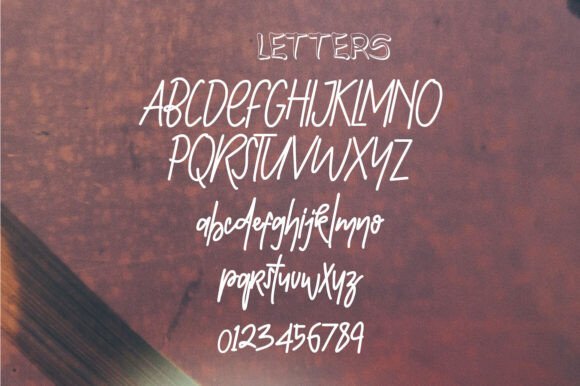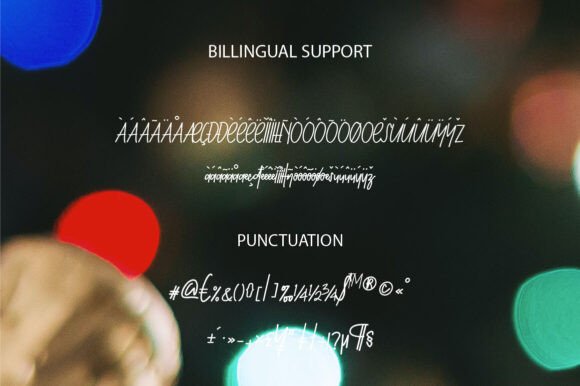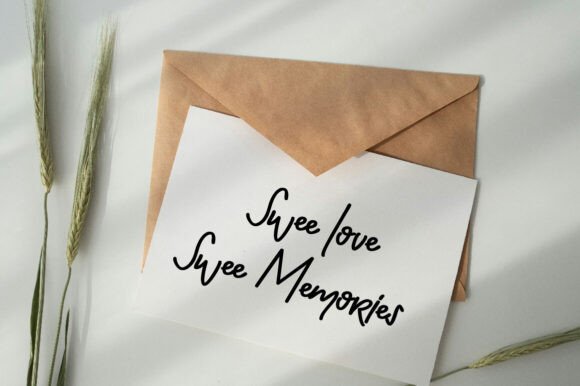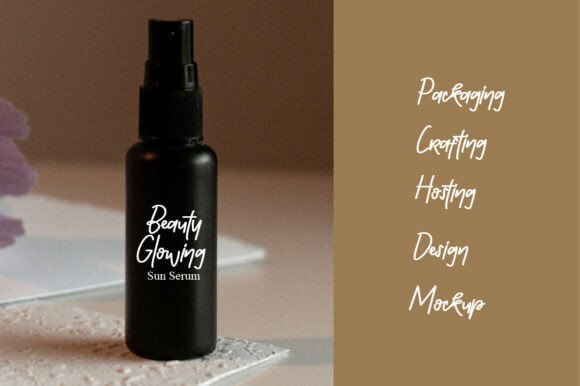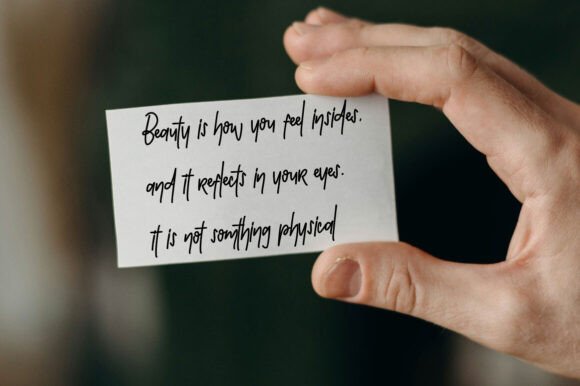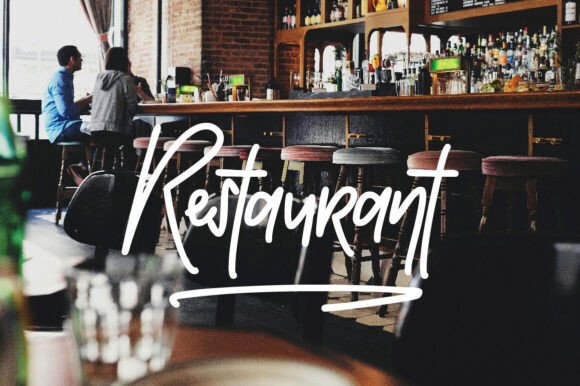
Introducing Bentroxs Font: Elevate Your Designs with Elegance and Sophistication
In the realm of typography, a well-crafted font can elevate a design from ordinary to extraordinary. For designers and crafters seeking a unique and captivating script typeface, look no further than Bentroxs Font. This contemporarily styled font is imbued with an enchanting touch of pressure, making it an ideal choice for creating stunning signature logos, discreet watermarks, and bespoke wedding invitations.
The Art of Bentroxs Font
Bentroxs Font is meticulously designed to offer a sleek blend of aesthetic charm and functional versatility. Its elegant strokes and refined lines make it particularly commendable for creating initial or branding logo signatures. Whether you’re a photography studio looking to add a touch of sophistication to your watermark or a designer crafting bespoke wedding invitations, Bentroxs Font is the perfect choice.
Key Features of Bentroxs Font
- Contemporarily styled script typeface: Bentroxs Font boasts a modern and stylish design that is sure to impress.
- Enchanting touch of pressure: The font’s subtle pressure touch adds a level of elegance and sophistication to any design.
- Ideal for signature logos and watermarks: Bentroxs Font is specifically designed to create stunning signature logos and discreet watermarks.
- Perfect for bespoke wedding invitations: The font’s elegant design makes it an excellent choice for crafting beautiful and unique wedding invitations.
- Sleek blend of aesthetic charm and functional versatility: Bentroxs Font offers a perfect balance of style and functionality.
Why Choose Bentroxs Font?
With Bentroxs Font, designers and crafters can enjoy a range of benefits, including:
- Unique and captivating designs: Bentroxs Font allows you to create striking and stunning typefaces that will set your designs apart.
- Ease of use: The font is easy to use and integrate into your designs, making it a convenient choice for designers and crafters.
- High-quality output: Bentroxs Font produces high-quality output that is sure to impress clients and audiences alike.
- Versatility: The font can be used for a range of design applications, from signature logos and watermarks to bespoke wedding invitations and more.
Tips for Using Bentroxs Font
To get the most out of Bentroxs Font, consider the following tips:
- Experiment with different sizes and styles: Bentroxs Font can be used in a range of sizes and styles, so don’t be afraid to experiment and find the perfect fit for your design.
- Pair with complementary fonts: Bentroxs Font pairs well with a range of complementary fonts, so consider pairing it with other fonts to create a unique and visually appealing design.
- Use for branding and identity: Bentroxs Font is perfect for creating branding and identity materials, such as logos, business cards, and letterheads.
In conclusion, Bentroxs Font is a stunning script typeface that is sure to elevate your designs to the next level. With its enchanting touch of pressure, sleek blend of aesthetic charm and functional versatility, and ease of use, Bentroxs Font is the perfect choice for designers and crafters seeking a unique and captivating font. So why wait? Embrace Bentroxs Font and watch strikingly stunning typefaces come to life.
Whether you’re a seasoned designer or a crafty DIY enthusiast, Bentroxs Font is sure to inspire and delight. So take the first step and discover the world of possibilities that Bentroxs Font has to offer. Your designs will thank you.